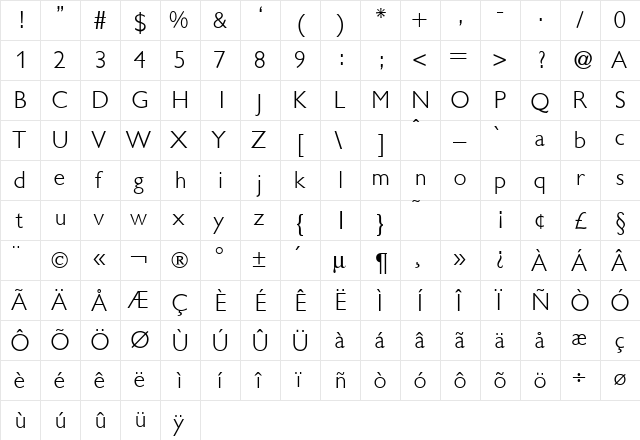
GillionLightDB Normal
Design Context for GillionLightDB Typeface
GillionLightDB offers clean, dependable letterforms without strong stylistic allegiance, making it a practical choice for designers who need flexibility. The delicate stroke weight brings airiness and refinement to layouts.
Pro Tip: Pair GillionLightDB with a font of contrasting weight or personality to build a more expressive typographic hierarchy.